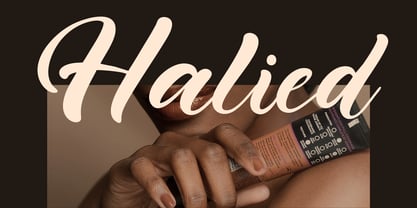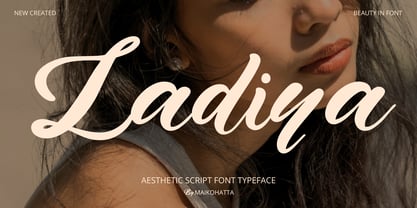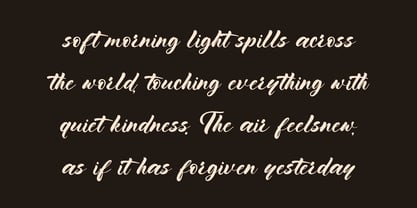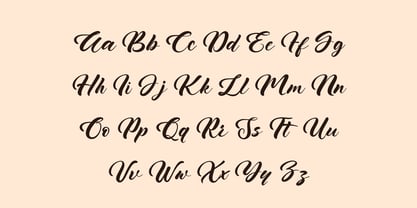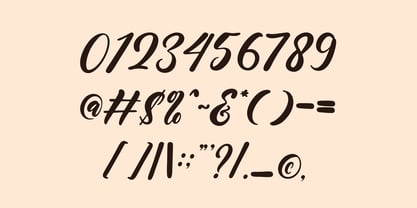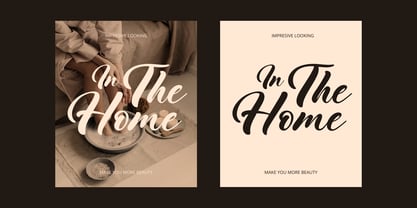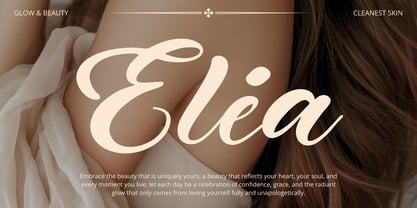
Ladiya
by Maikohatta
The Ladiya Font Family was designed by Gilang Ternadho and published by Maikohatta. Ladiya contains 1 styles. More about this family
Introducing our new product Ladiya – Modern Handwritten Script Ladiya is an elegant and aesthetic script font with smooth curves and a natural handwriting flow. Designed to express beauty, softness, and modern elegance, this font brings a distinctive and clean style to your typography. This font blends modern calligraphy with a minimalist aesthetic, making it versatile, timeless, and visually appealing across digital and print projects.
Designers: Gilang Ternadho
Foundry: Maikohatta